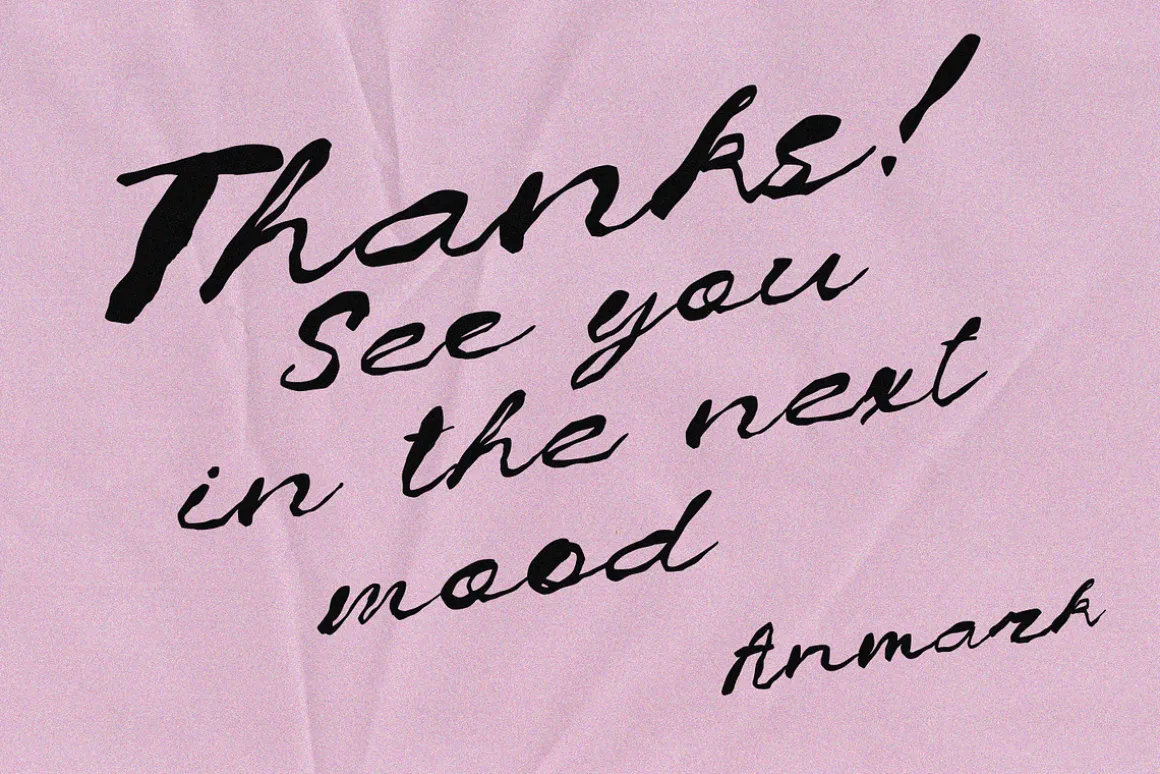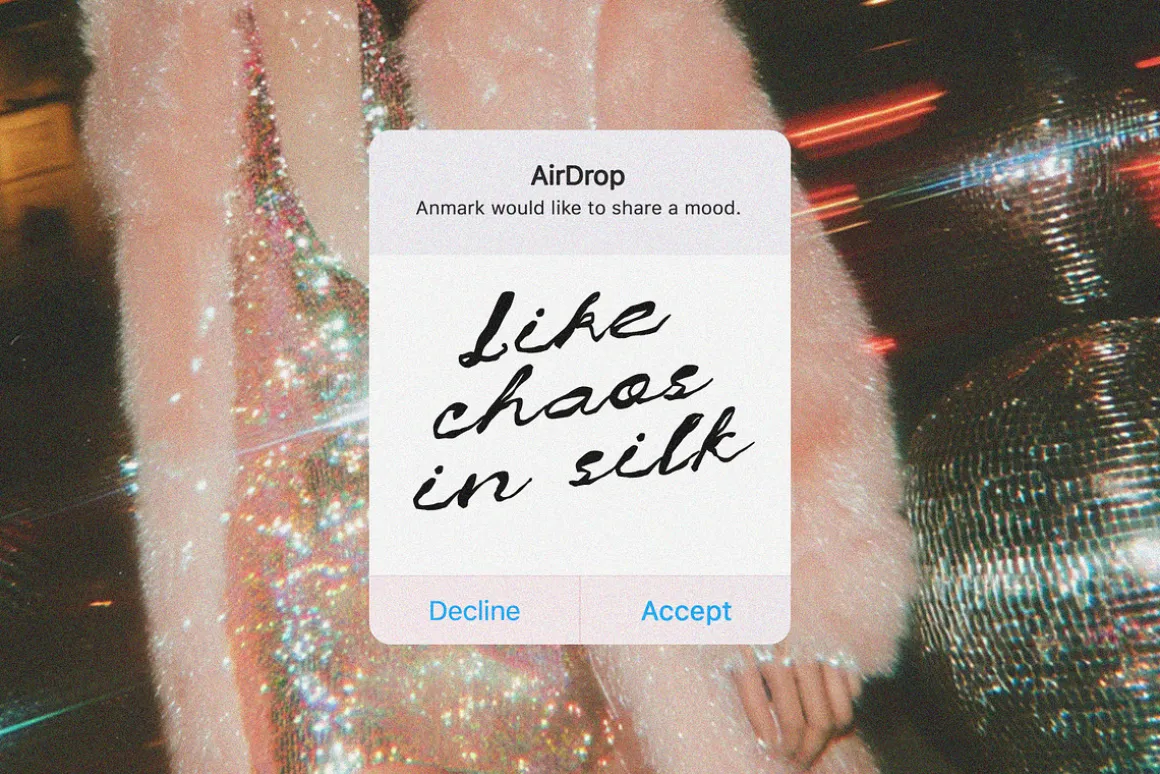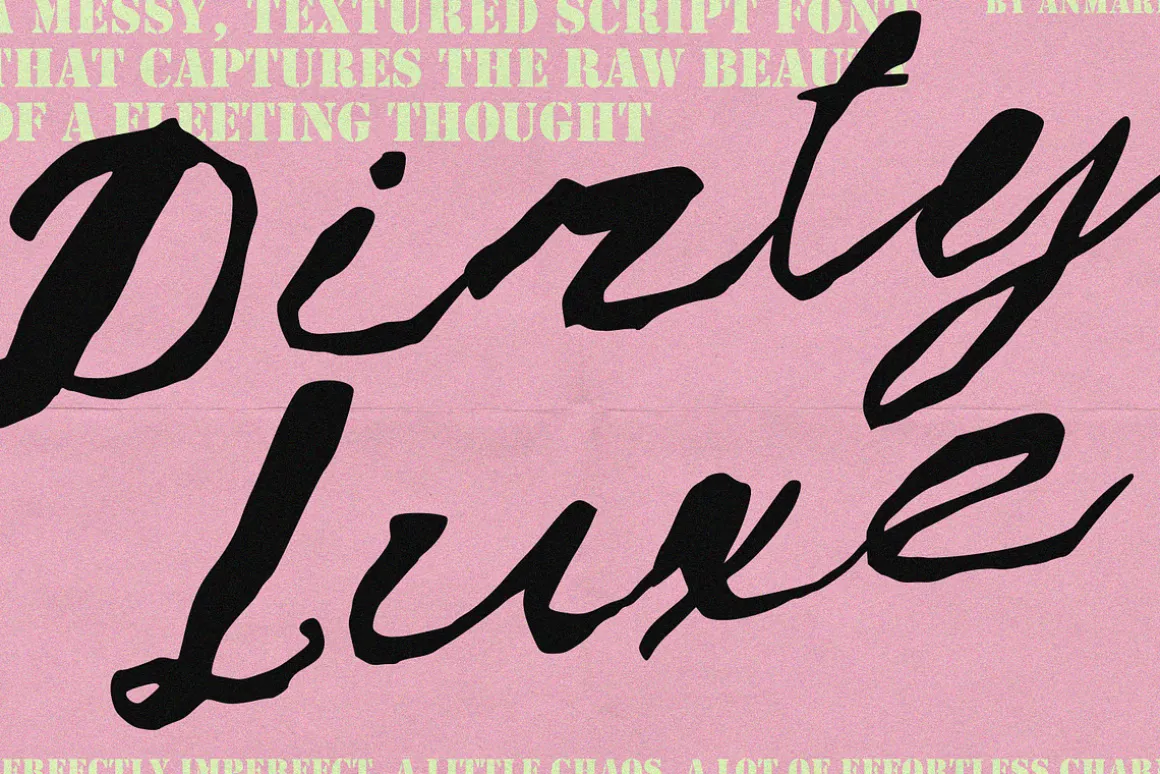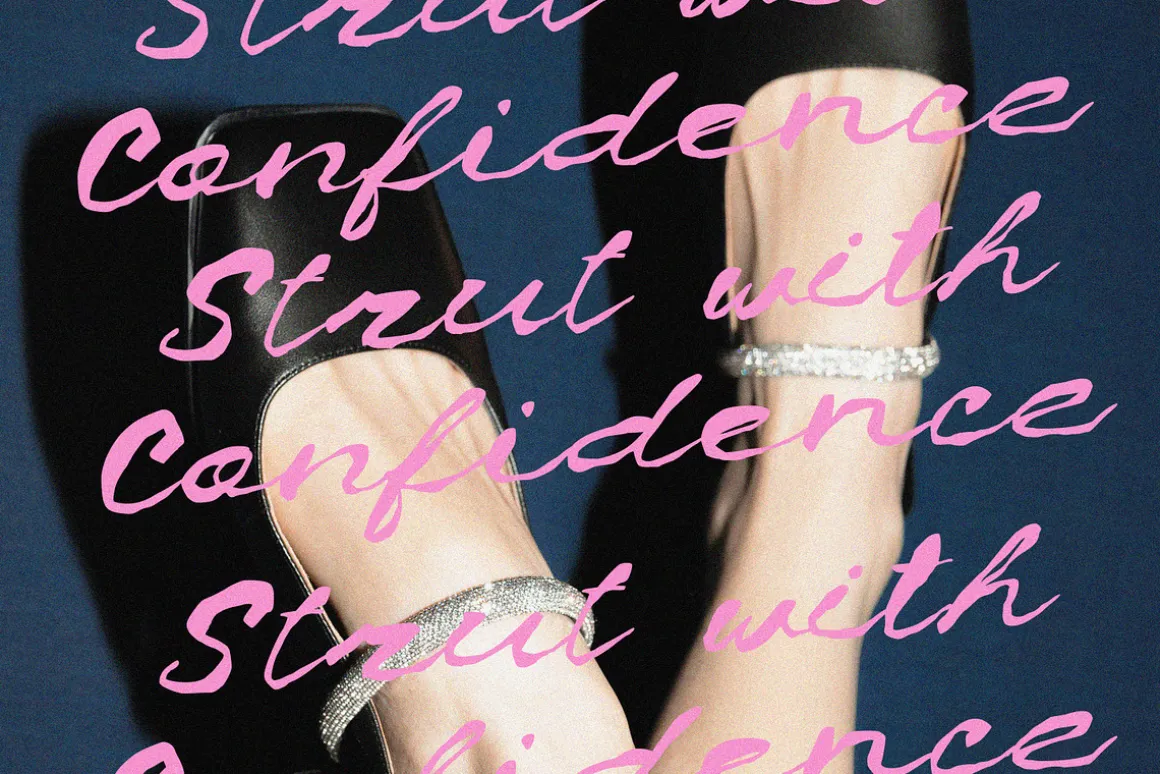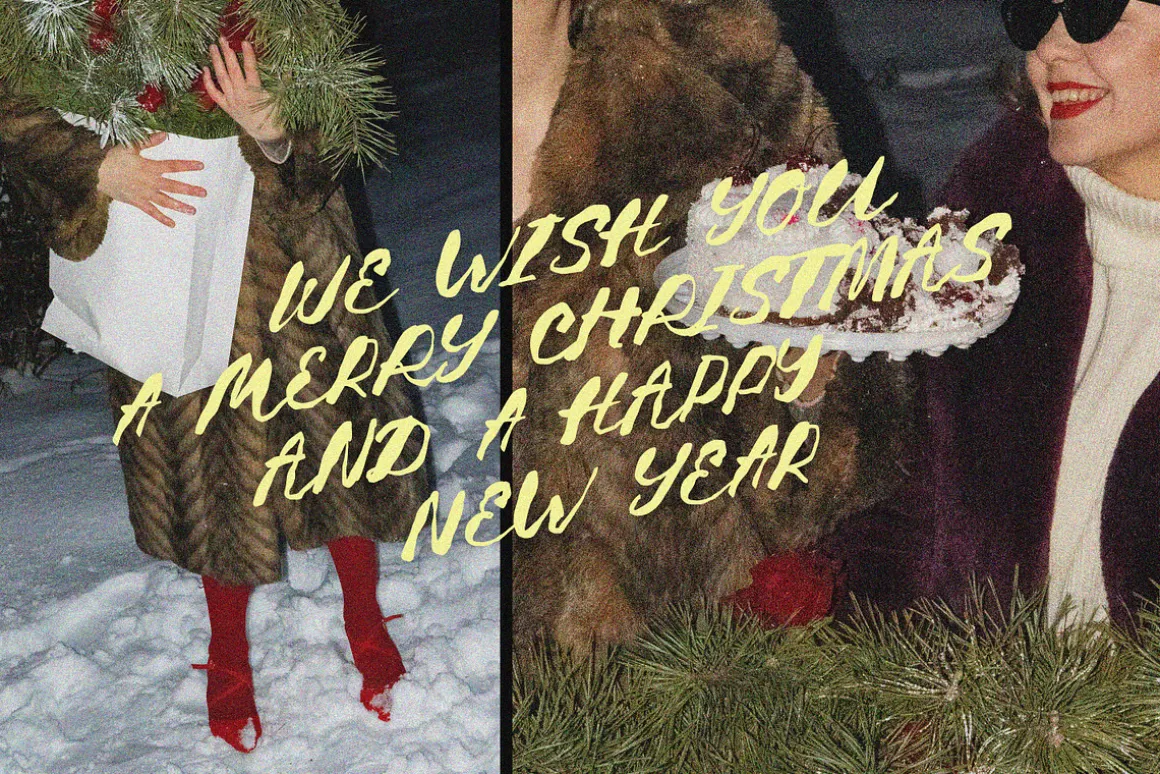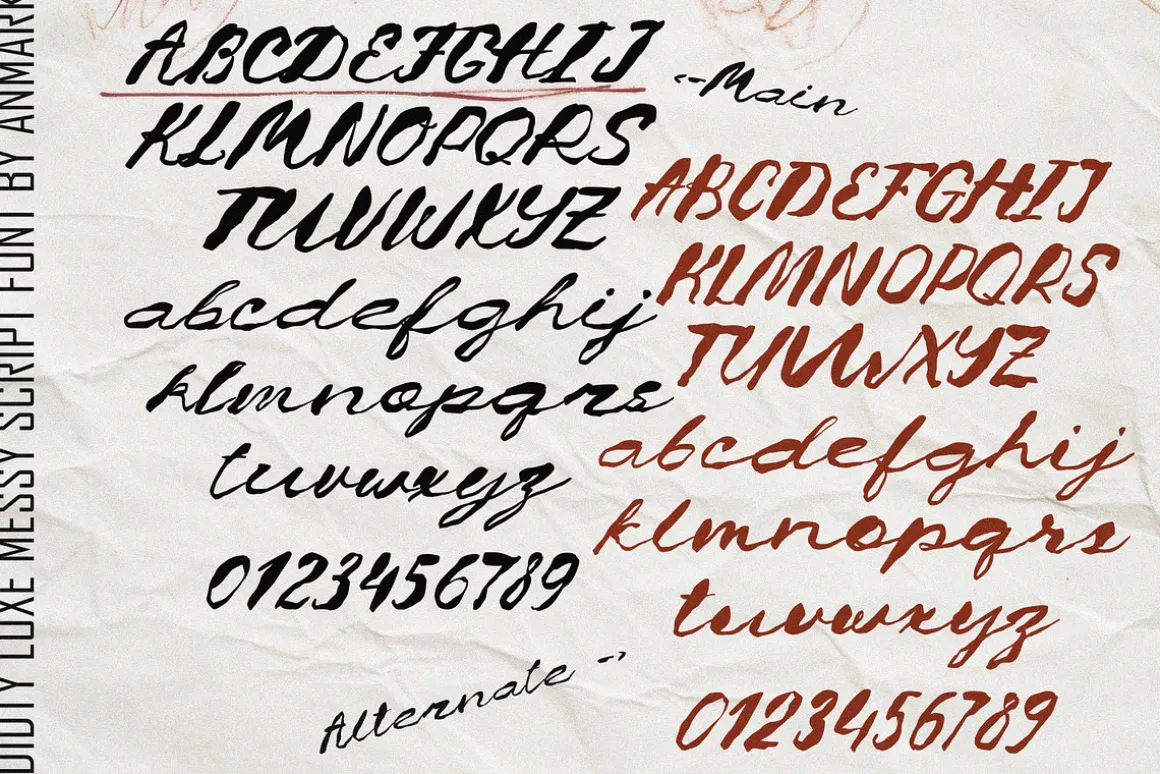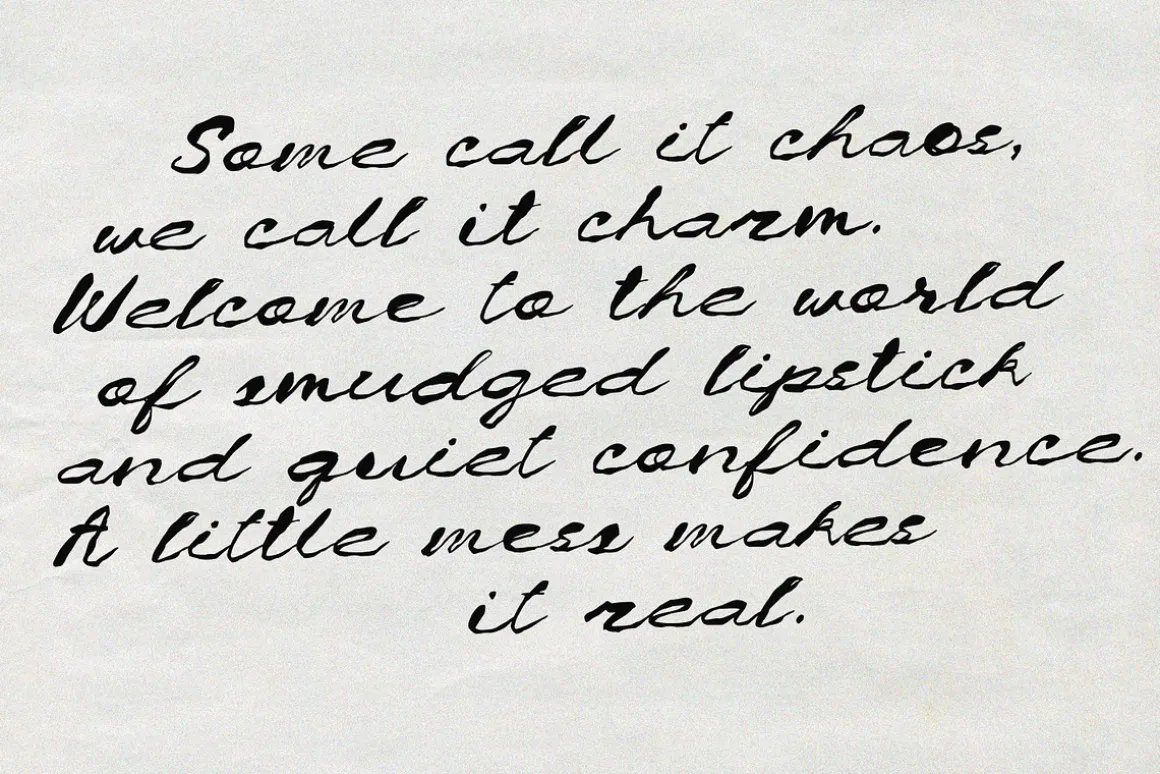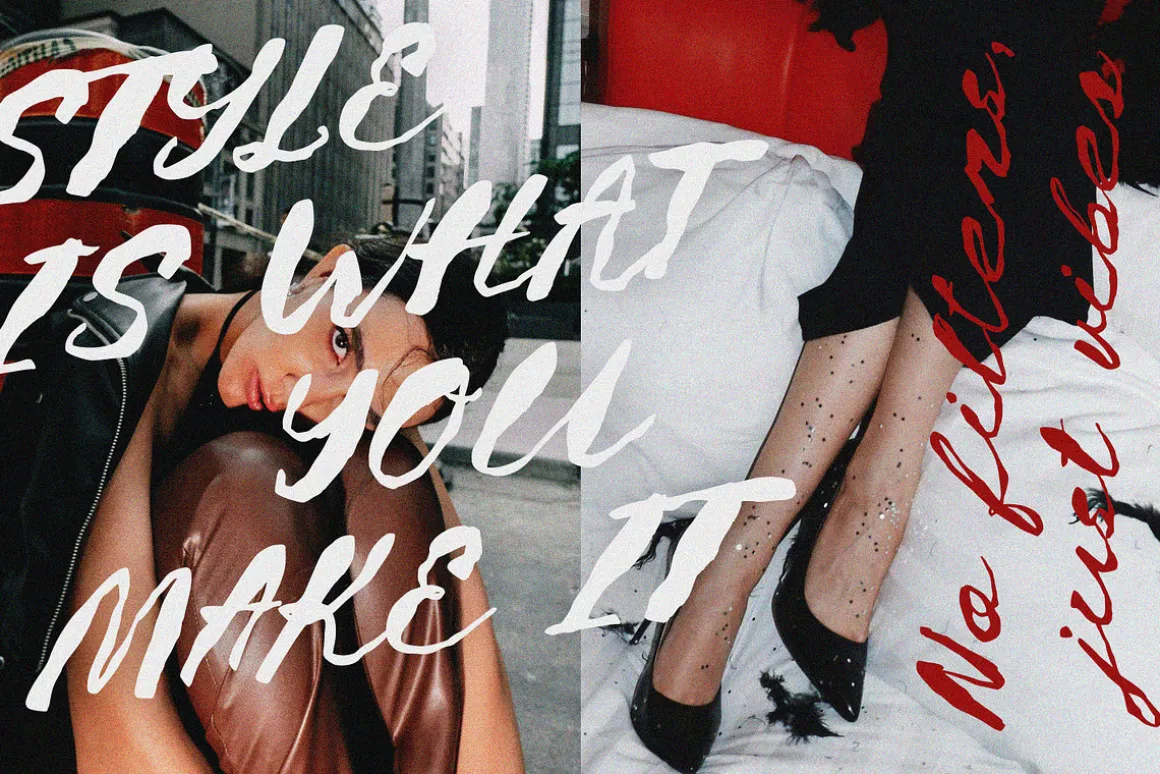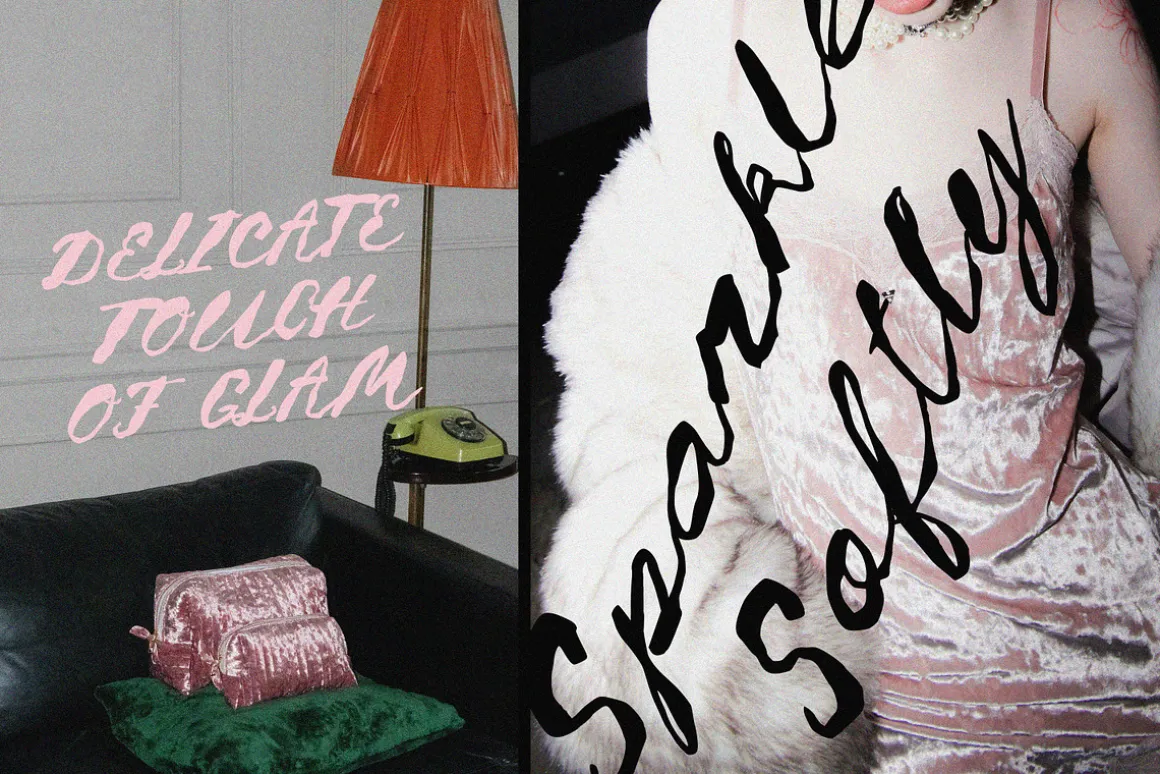
Dirty Luxe is a messy, confident handwritten script that blends raw imperfection with effortless fashion vibe. Its inky strokes feel spontaneous and unfiltered, like a quick note written in lipstick or a splash of ink turned into style.
Every uppercase, lowercase, and number comes with an alternate, letting you create natural, expressive combinations that feel alive and beautifully chaotic.
Perfect for fashion branding, editorials, packaging, social media, or any creative project that craves a handwritten touch with attitude – inky, stylish, and unapologetically luxe.